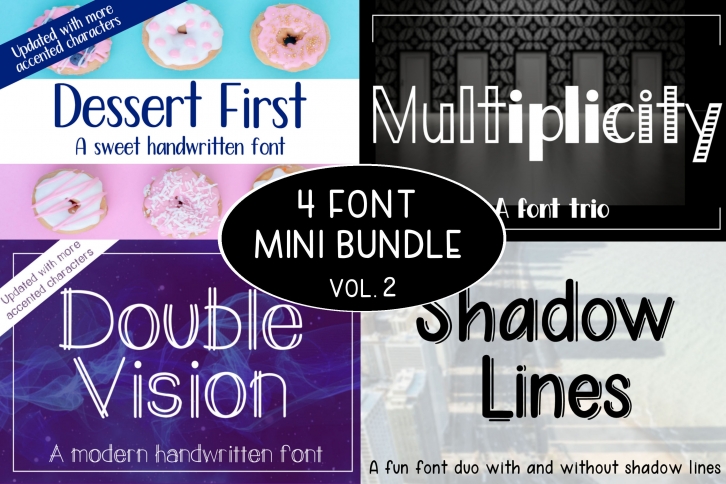
4 Mini Bundle is a trendy and unique font with an authentic style. It was designed by Stacys Digital Designs and it's a great choice for creative people who need such a font. It was released on June 7, 2019 and the file size is 3.53 MB. 4 Mini Bundle will add an organic vibe to any design idea!